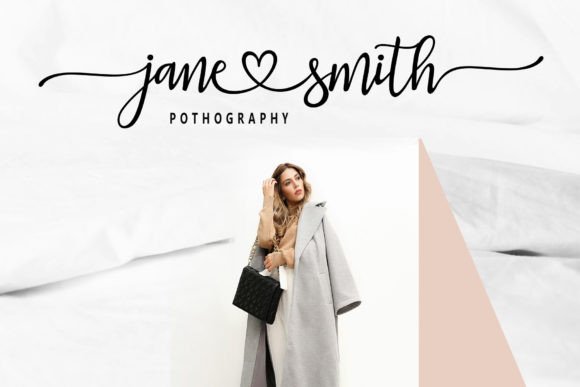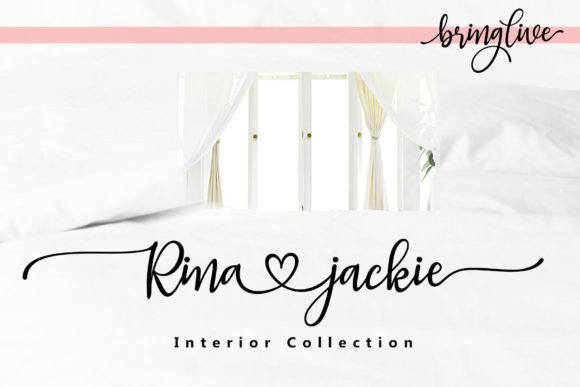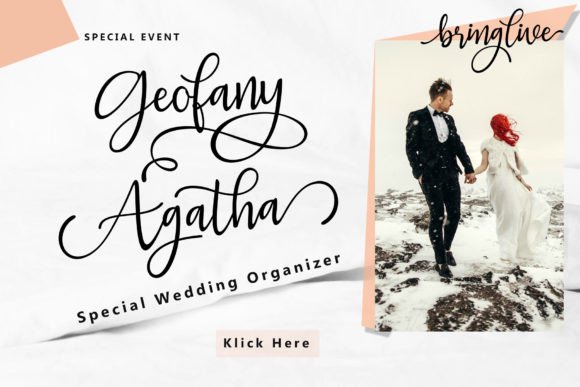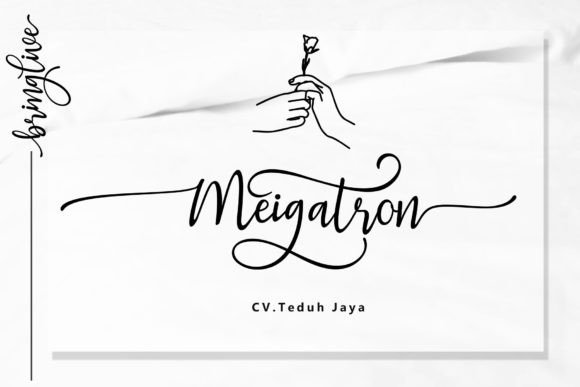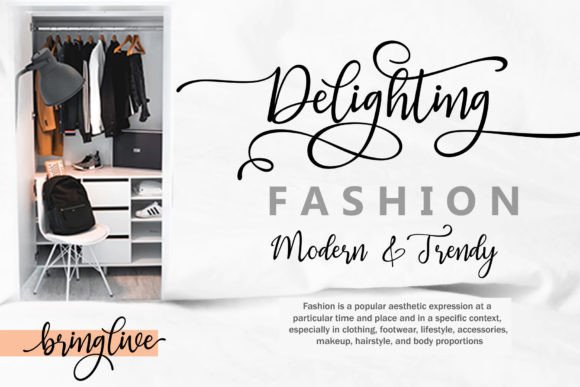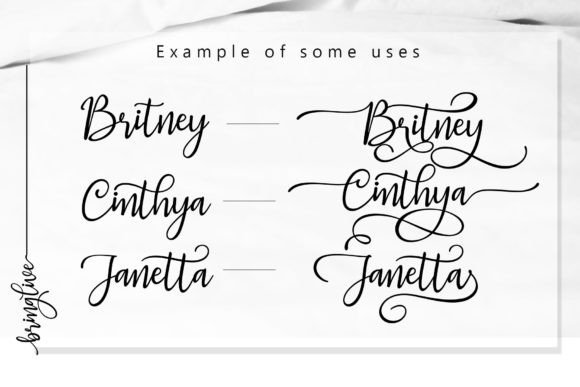
Give Your Design a Personal Touch with Bring Live Font
Have you ever stared at a blank page, waiting for inspiration to strike? For many creatives, the blank page can be a daunting obstacle. But what if that blank page could come alive with the perfect font? Enter Bring Live Font, a beautiful and timeless handwritten font that’s sure to add a personal touch to your designs.
This lovely font is perfect for creating eye-catching logos, branding, and quotes that truly stand out. Every letter in Bring Live Font has a unique and beautiful touch, making it a valuable asset for designers looking to add a personal flair to their work. With Bring Live Font, you can bring your designs to life and make them truly unforgettable.